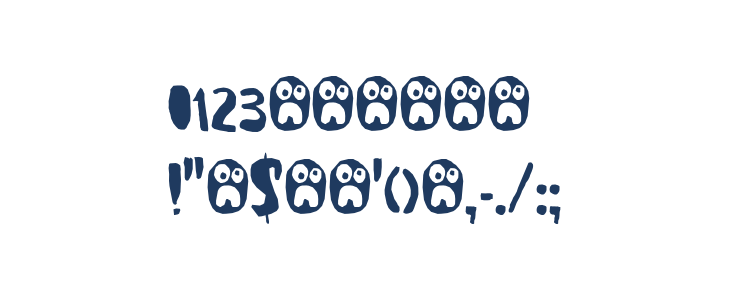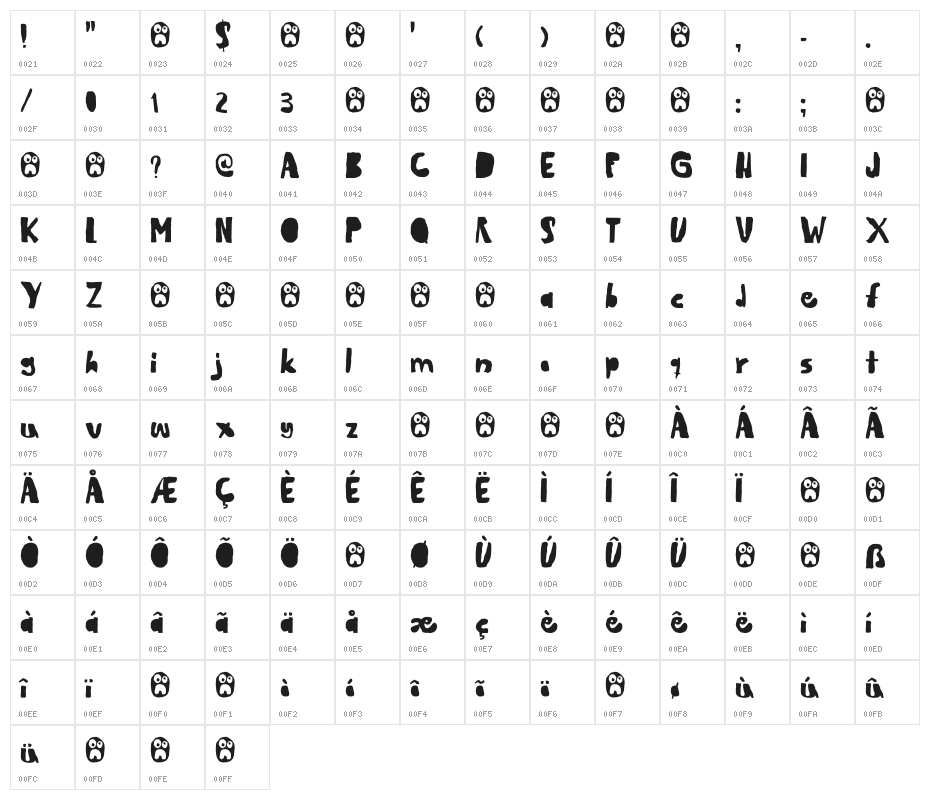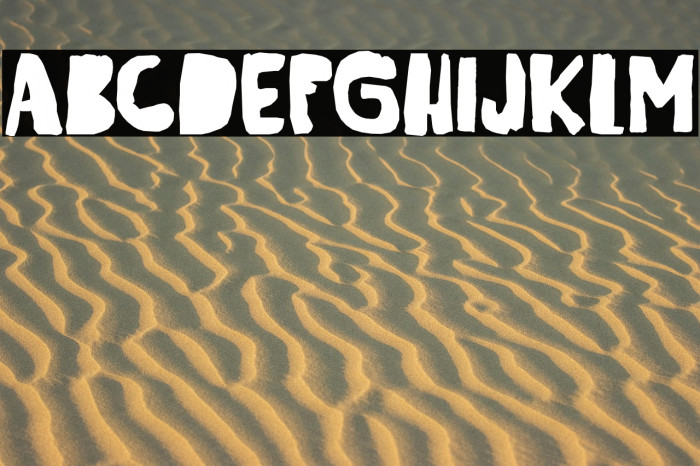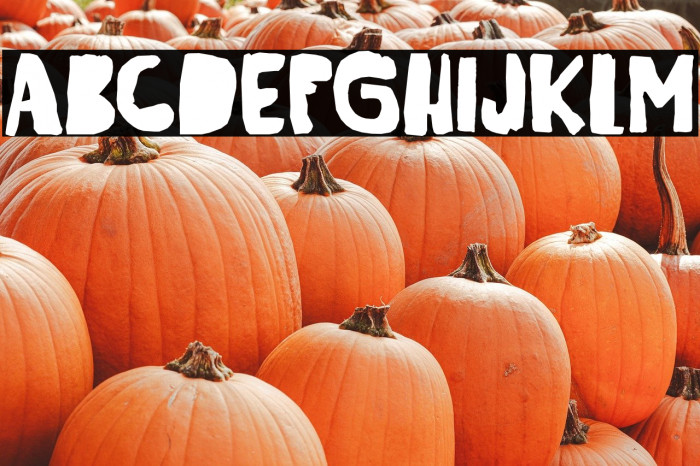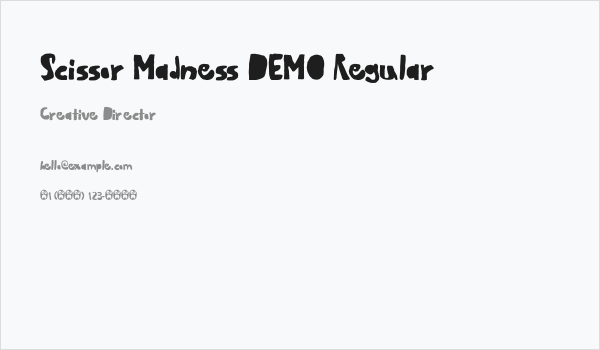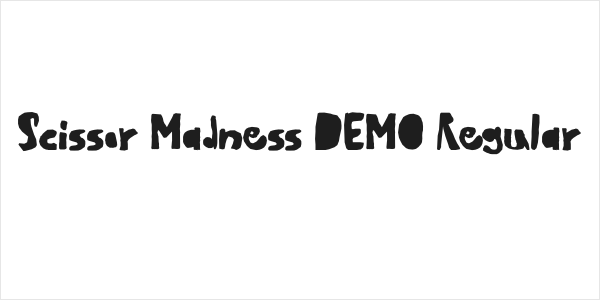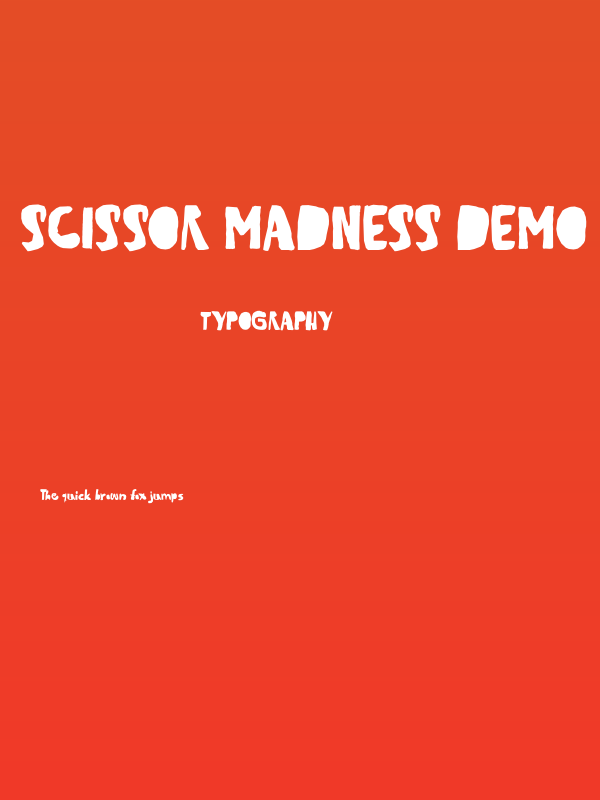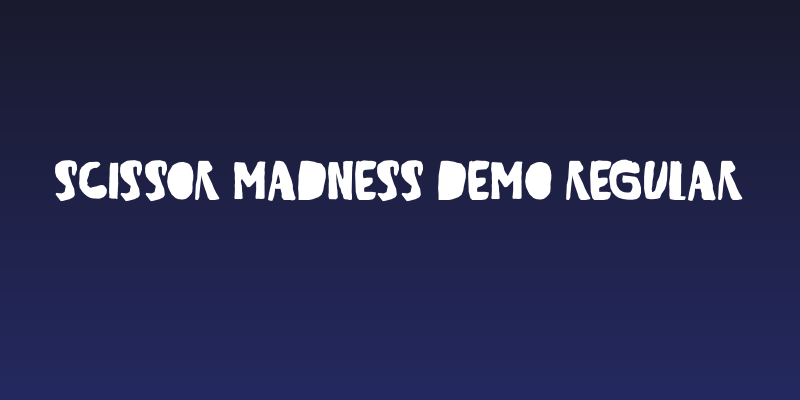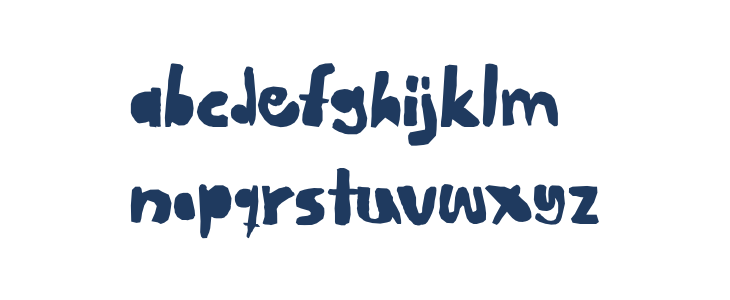
Scissor Madness DEMO Regular Font
Scissor Madness DEMO Regular Description
This font features a playful and quirky design, characterized by its irregular and bold letterforms. The uppercase and lowercase letters exhibit a hand-cut appearance, reminiscent of paper cutouts, which adds a whimsical and artistic flair. The numbers are uniquely designed with expressive faces, adding a humorous touch to the font. Special characters maintain the same playful style, ensuring consistency throughout. The overall design is bold and attention-grabbing, making it suitable for creative and informal projects.